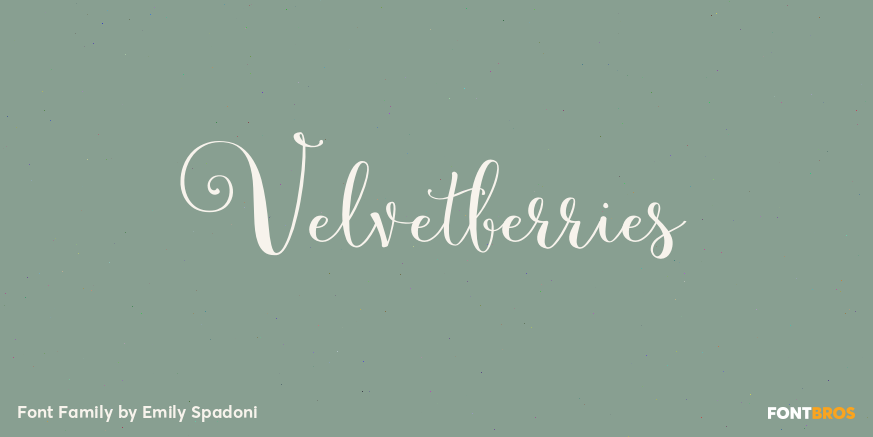
Velvetberries
About Velvetberries
Introducing Velvetberries!. A modern spin on classic hand-lettered calligraphy. Warm inviting characters you\’ll use through all seasons, weddings, showers, logos, holidays and more! You\’ll have so much fun creating your own hand-lettered text syles.…